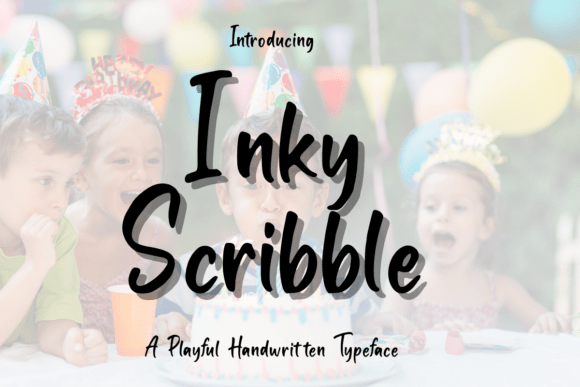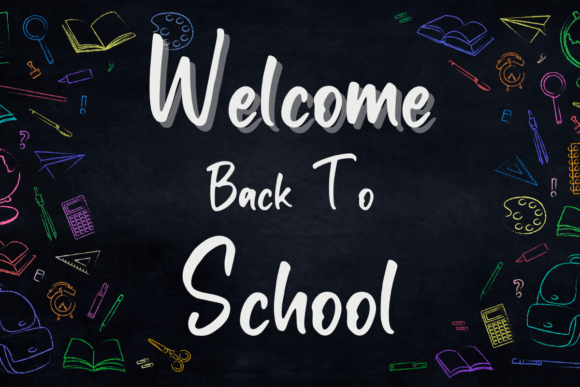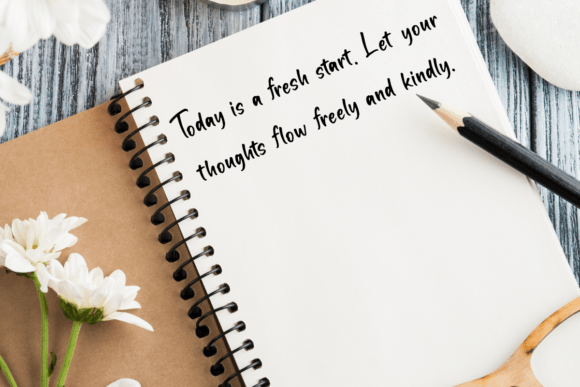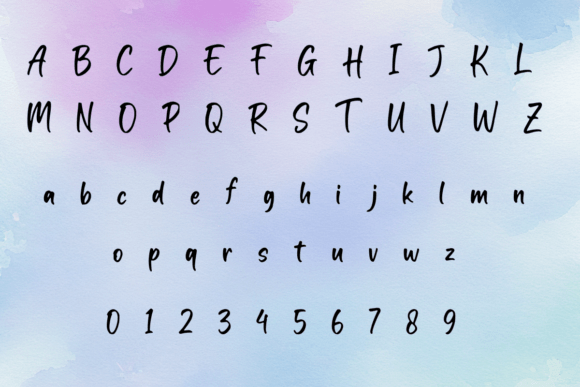
Unleash Your Creativity with the Perfect Handwritten Touch
Have you ever been doodling in your notebook, trying to capture the perfect phrase or quote, only to realize that your handwriting just isn’t doing it justice? We’ve all been there, searching for the perfect way to add a little personality to our designs. That’s where the Inky Scribble Font comes in – a playful and sketch-style handwritten font that brings a touch of charm to any design.
This versatile font is perfect for adding a personal touch to notebooks, quotes, planners, and creative print projects. With standard characters and punctuation, you can rely on Inky Scribble Font to help you convey your message with style. As a designer, you know how valuable it is to have the right tools at your fingertips, and Inky Scribble Font is a must-have for any creative project.
Inky Scribble Font Key Features
- Font Family: Inky Scribble, a unique, hand-drawn font designed for creative projects
- Unique Characteristics: Includes 1000+ glyphs, including alternate characters, ligatures, and swashes, to add a touch of personality to your designs
Inky Scribble Font Review
Overall, I think Inky Scribble is a fun and quirky font that can add some personality to your designs. Here are some things that work well:
- ✨ Unique and expressive character set: Inky Scribble has a great set of characters that are well-drawn and easy to read.
- ✨ Good for informal and creative projects: This font is perfect for projects that need a more relaxed and playful tone.
- ✨ Supports a wide range of languages: I was impressed to see that Inky Scribble supports many languages, making it a great choice for international projects.
- ⚠️ Not ideal for formal or professional projects: While Inky Scribble is great for creative projects, it may not be the best choice for formal or professional work.
- ⚠️ May not be suitable for small font sizes: The font’s unique style can make it difficult to read at small font sizes, so be sure to test it out before using it.
- ⚠️ Some characters may not be as polished as others: While the overall design of the font is great, some characters may not be as well-drawn as others.
Overall, I think Inky Scribble is a great addition to any designer’s toolkit. While it may not be suitable for every project, it’s a fun and expressive font that can add some personality to your designs.
For the best results, use the Inky Scribble font in conjunction with bold or italic styles to add emphasis. Experiment with different font sizes and colors to create visual interest. This font is particularly effective for creating hand-drawn or handwritten text effects.
The Inky Scribble font is ideal for:
- Creating playful and whimsical designs
- Adding a personal touch to invitations or greeting cards
- Designing children’s books or educational materials
- Creating hand-drawn or handwritten text effects